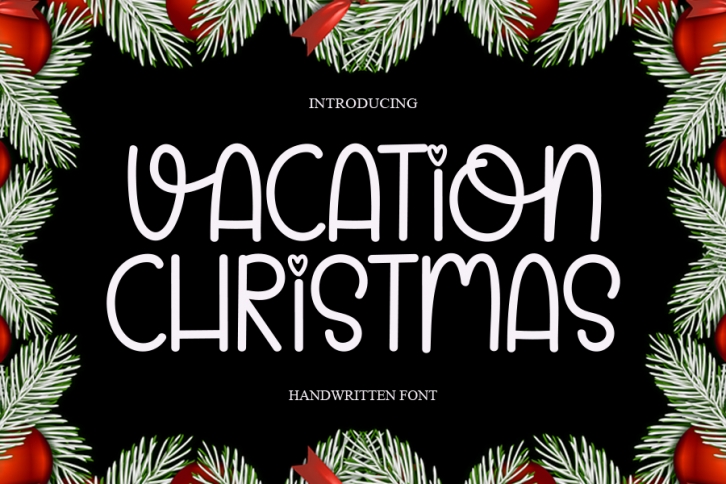
Vacation Christmas is an exquisite handwritten font, masterfully designed to become a true favorite. It maintains its classy calligraphic influences while feeling contemporary and fresh.